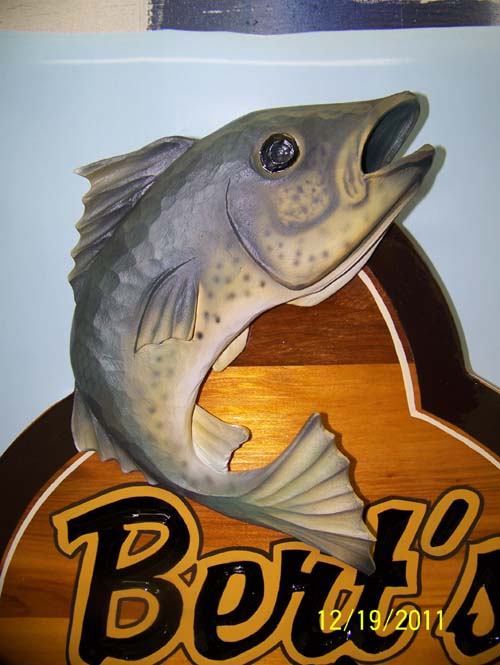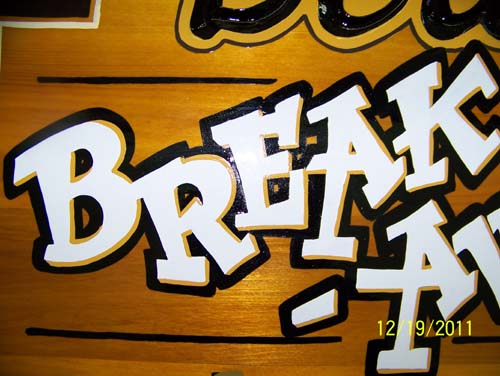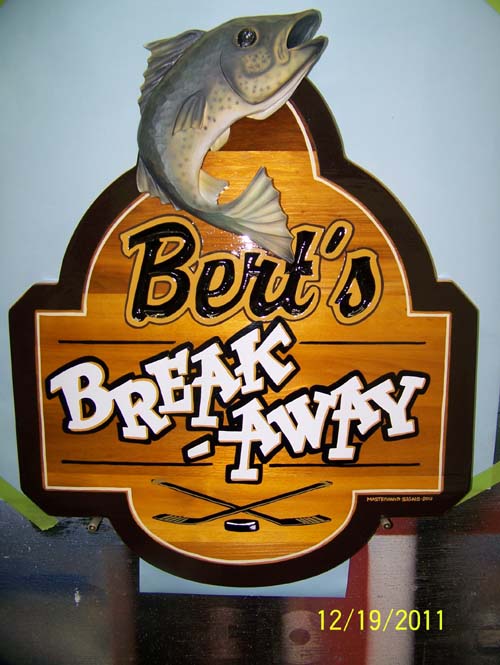
Pat has been fishing.
Another Christmas client sign is complete and ready to go out the door. It is clear cedar with Bert's recess carved, the raised fish is carved from HDU and airbrushed with latex. The rest is 1shot painted on top of Nazdar clear.
The sign is 2 feet tall by 20 inches wide.
A fishy sign
That's a tad bit nicer than decent!
In fact, that's down right beautiful!
Nice work there...and it looks like it was fun too!
Me....got myself into something bigger than I am.......
them projects with a lot of steps...each one raises the stress level a bit....
I'll make it through....always do, don't I ?......
dammit, Patrick!
that's a creative beauty!
Very nice. Well done!!
Yeo Pat.....I was about ready to get out a skillet and fry that feller up. Nice project and great to have jobs like that in the shop I'd bet!! We'll have to talk further about projects like these in person one day.
great sign could eat the fishDoug Bernhardt wrote:Yeo Pat.....I was about ready to get out a skillet and fry that feller up. Nice project and great to have jobs like that in the shop I'd bet!! We'll have to talk further about projects like these in person one day.